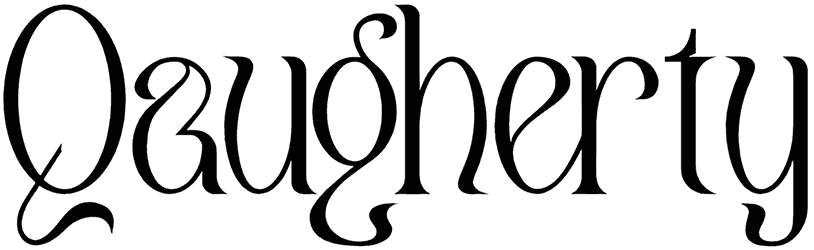
Qaugherty Font
With a classic and catchy style, this retro font could make your novel design lovely. Qaugherty consists of unique curving letters that reflect a salient vibe. With an A-Z cover of characters, this decorated serif font would be an appealing item for many layouts such as business cards, invitations, logos, and a lot more others the same.